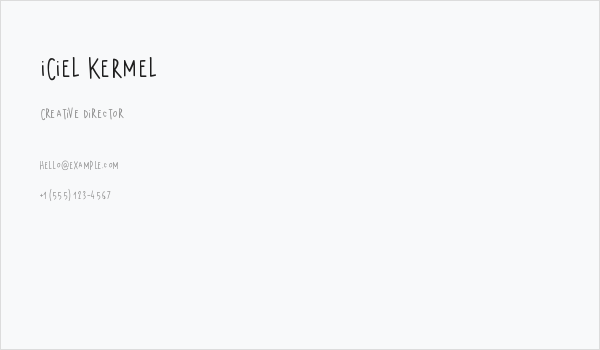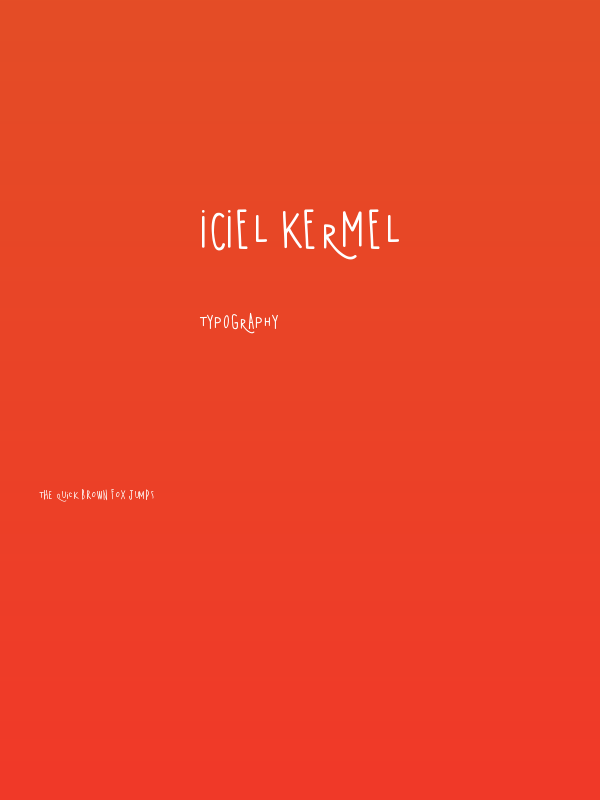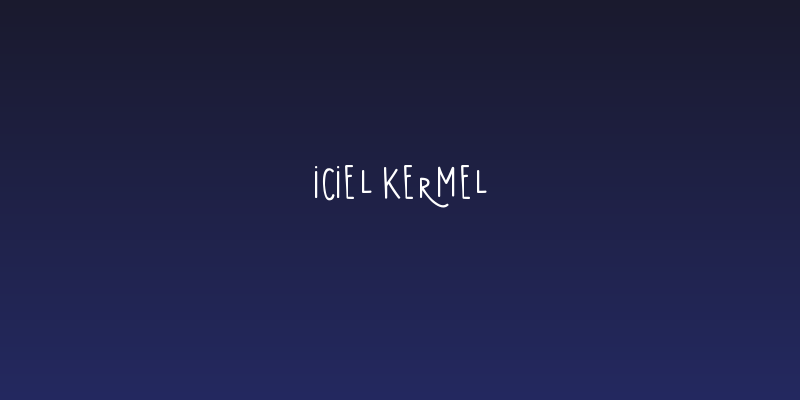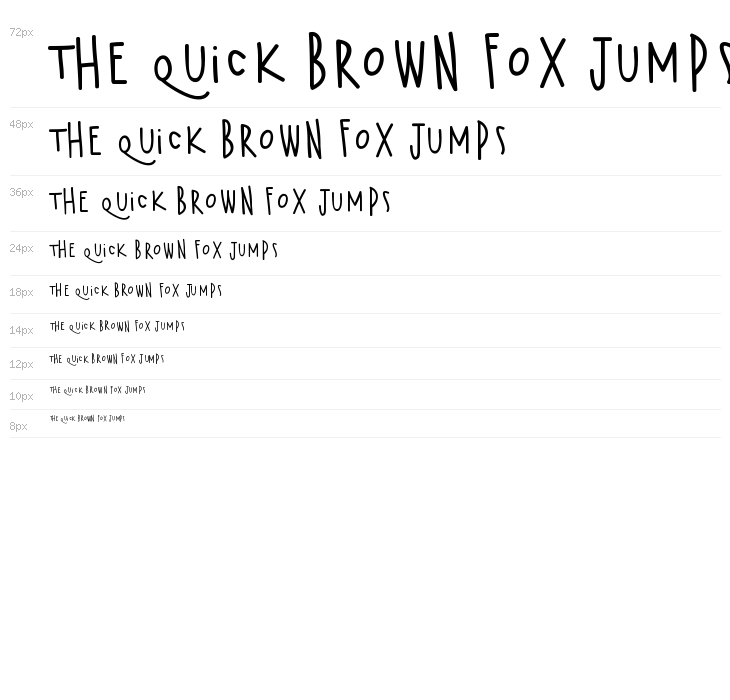
iCiel Kermel Font
iCiel Kermel Description
This font features a playful and whimsical handwritten style, characterized by its irregular strokes and casual appearance. The letters have a slightly uneven baseline, adding to the informal and friendly feel. The uppercase and lowercase letters are distinct, with some letters having unique flourishes, such as the tail on the 'Q' and the loop on the 'g'. The numerals are consistent with the overall style, maintaining the same playful and informal look. Special characters are included, matching the quirky and light-hearted design. This font exudes a sense of creativity and spontaneity, making it ideal for projects that require a personal touch.
| Use Case | Logos, Headlines, Informal Text |
| Proposed Projects | Ideal for greeting cards, children's books, casual branding, and creative projects. |